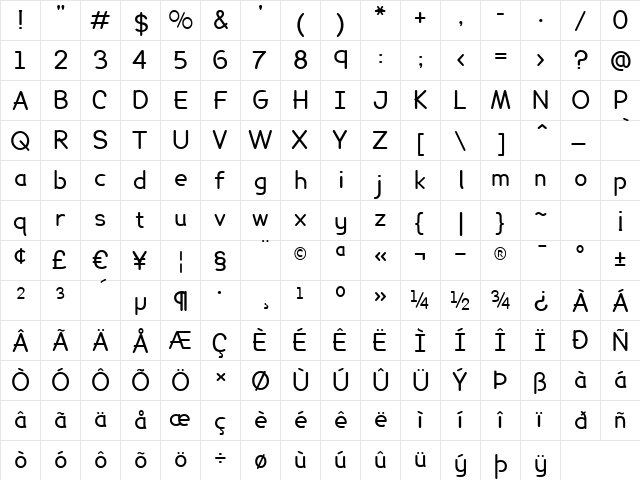
Lexia Regular
Design Context for Lexia Typeface
Lexia is a composed and adaptable typeface that performs quietly and consistently across a wide range of design contexts.
Pro Tip: Use Lexia in both headline and body roles to test its range before committing to a single application.